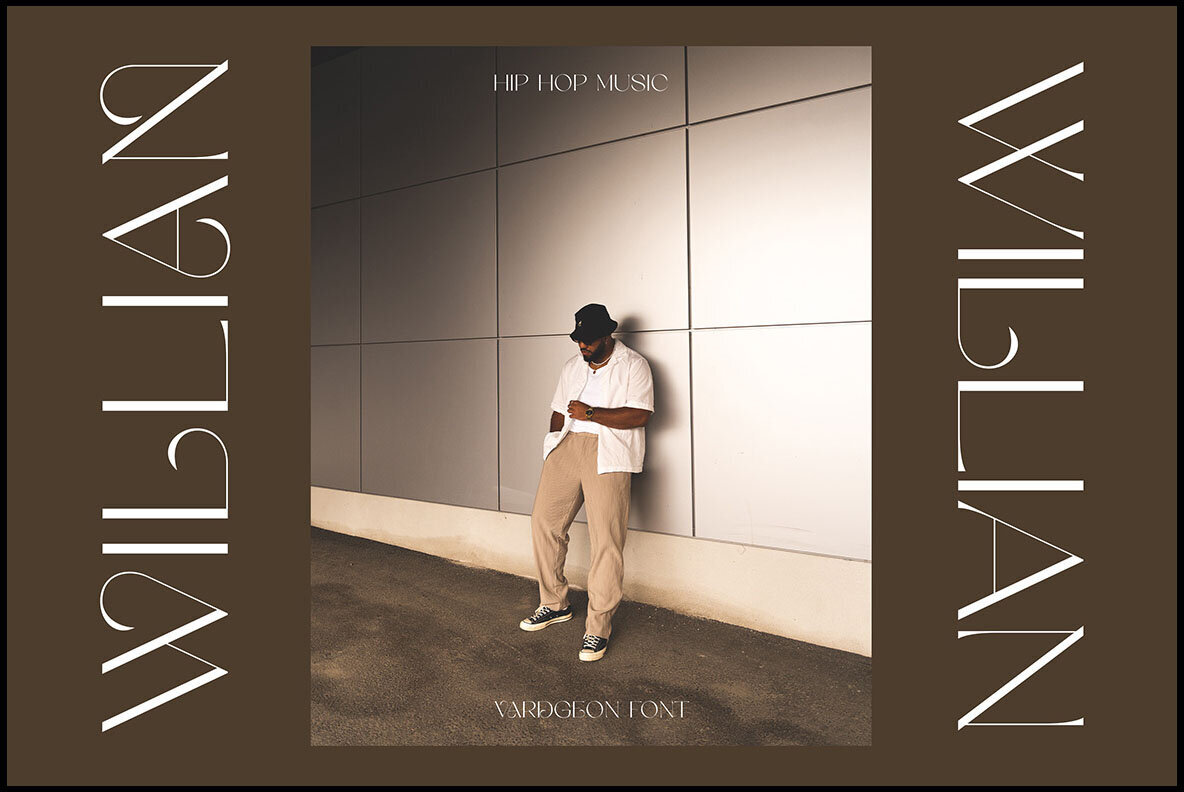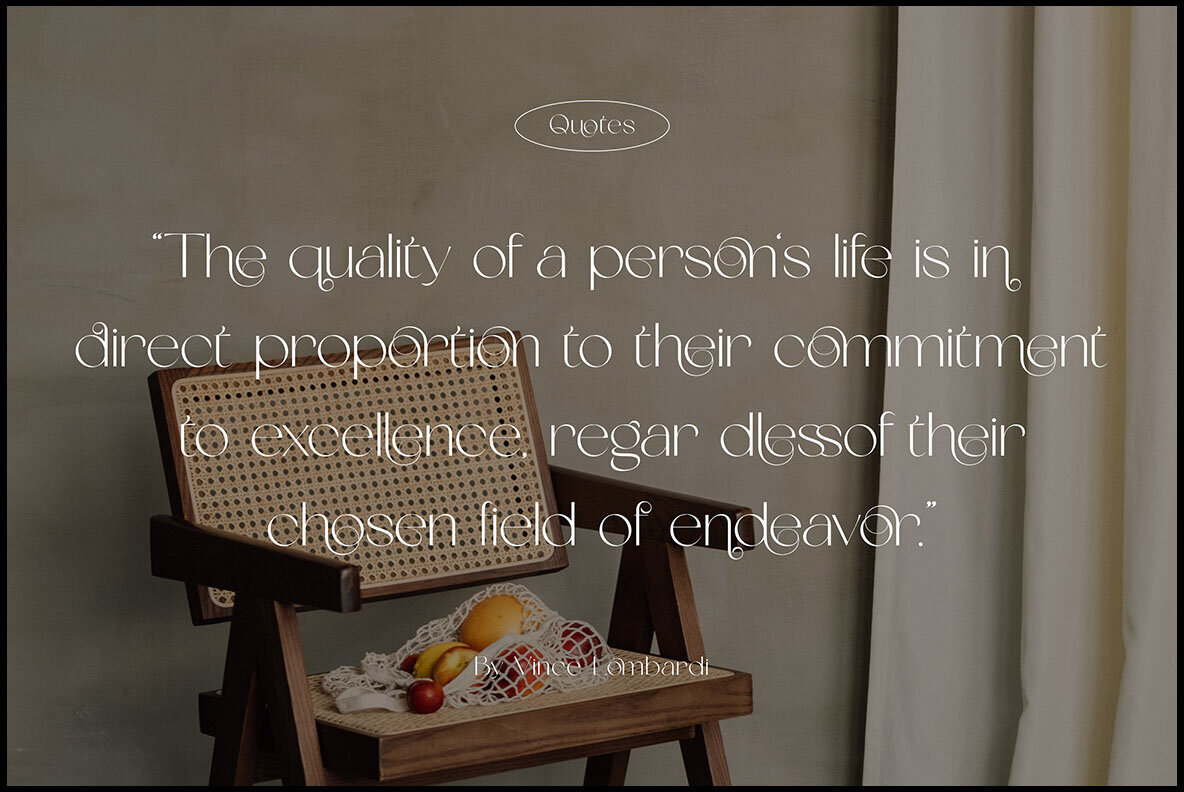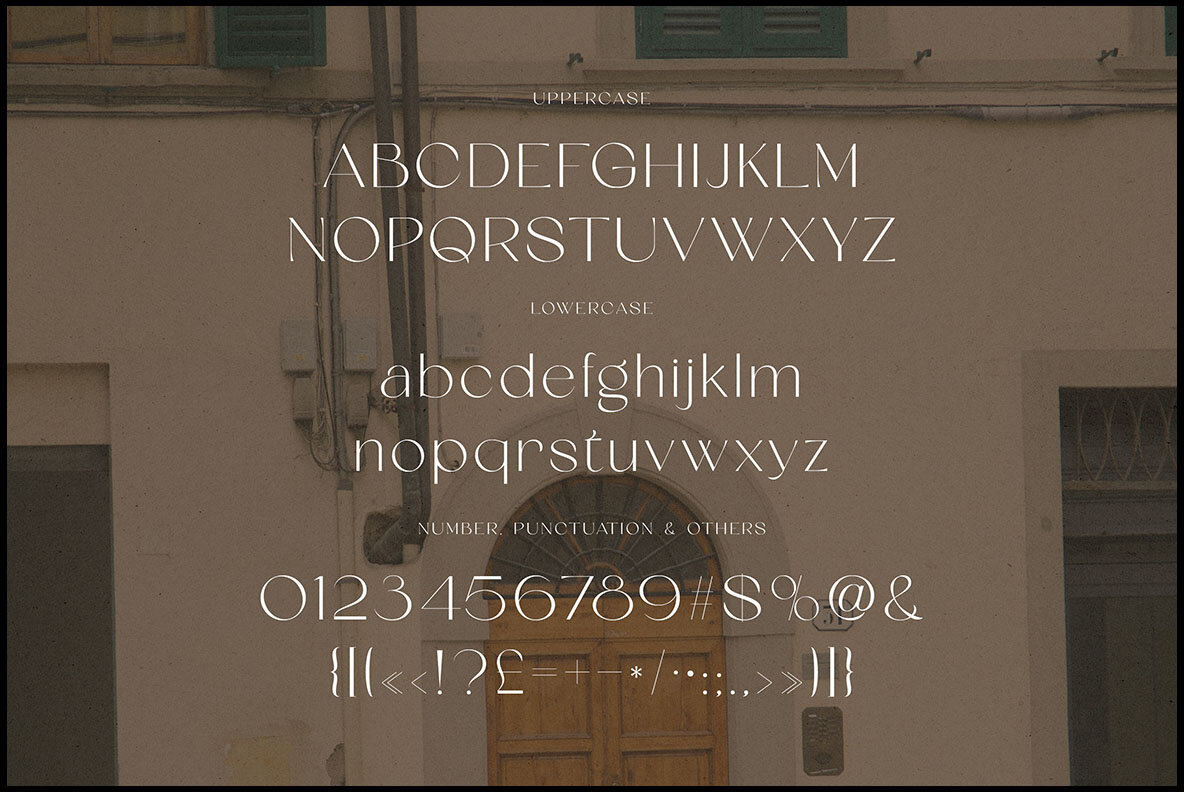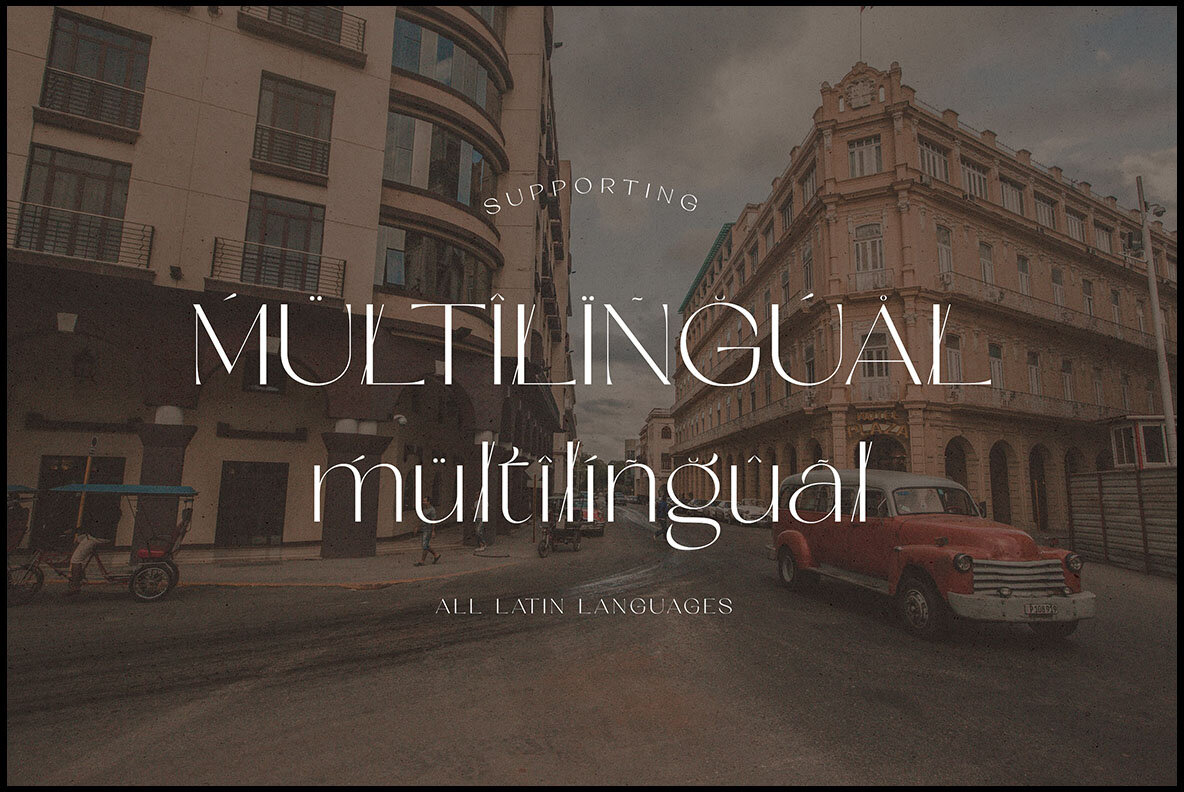
Vardgeon Font
Vardgeon Regular
The Vardgeon font by Peter Olexa combines trendy, elegant, and retro-inspired styles into a modern sans serif. Perfectly suited for contemporary branding projects, this font adds a touch of luxury and fashion-forward design to any creative endeavor. With its variety of alternates and ligatures, Vardgeon enables the creation of unique and distinctive logos or website headers.Vardgeon: Modern Sans Serif with Artistic Flair